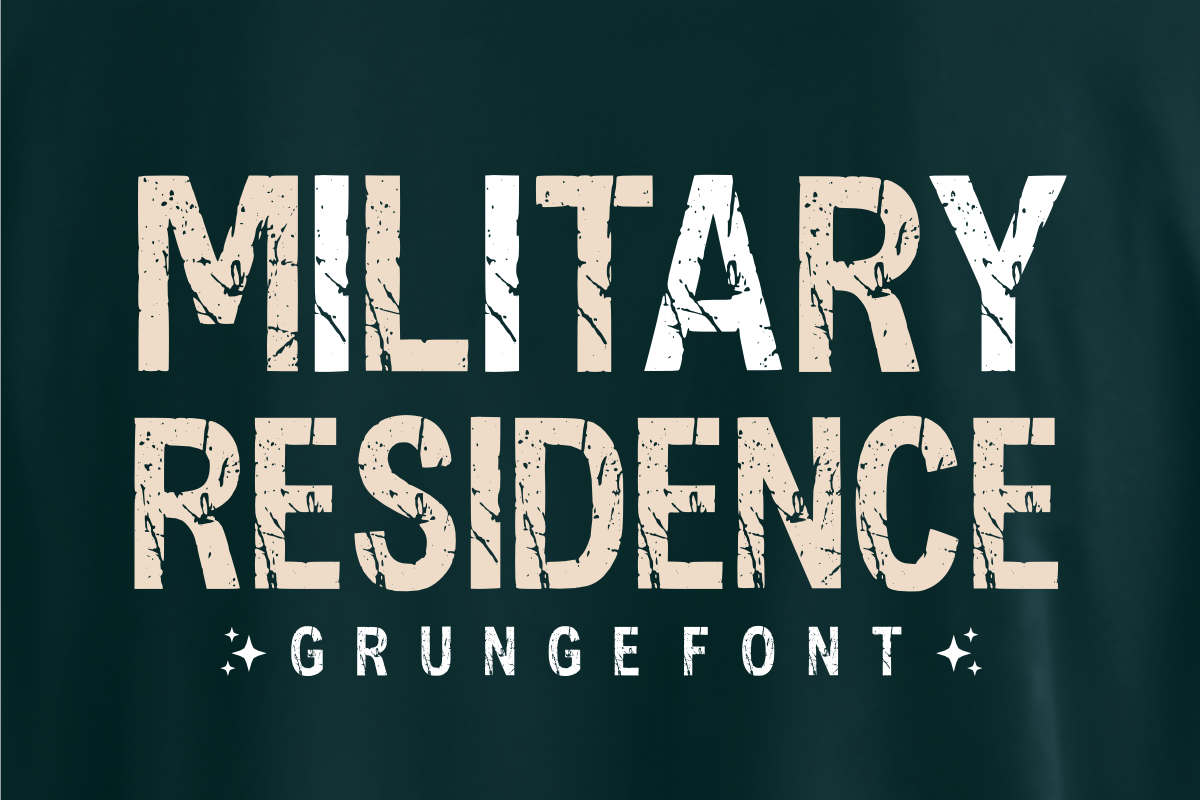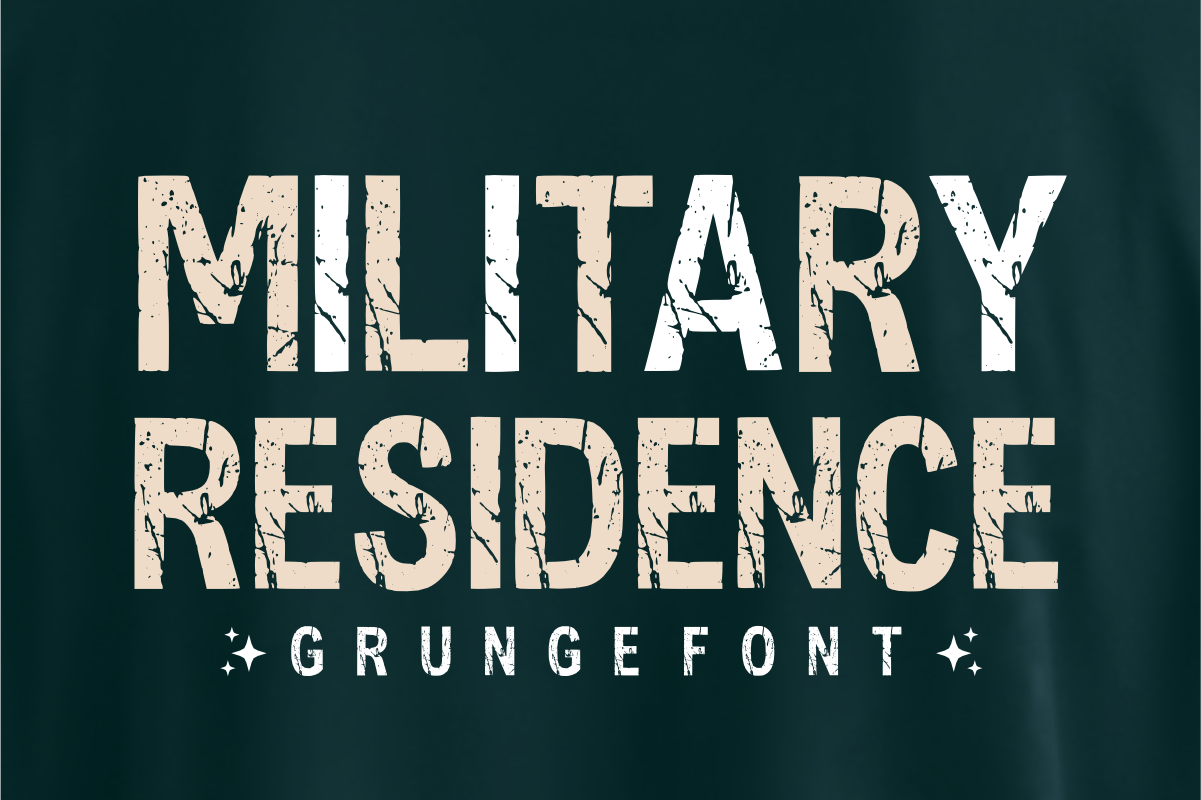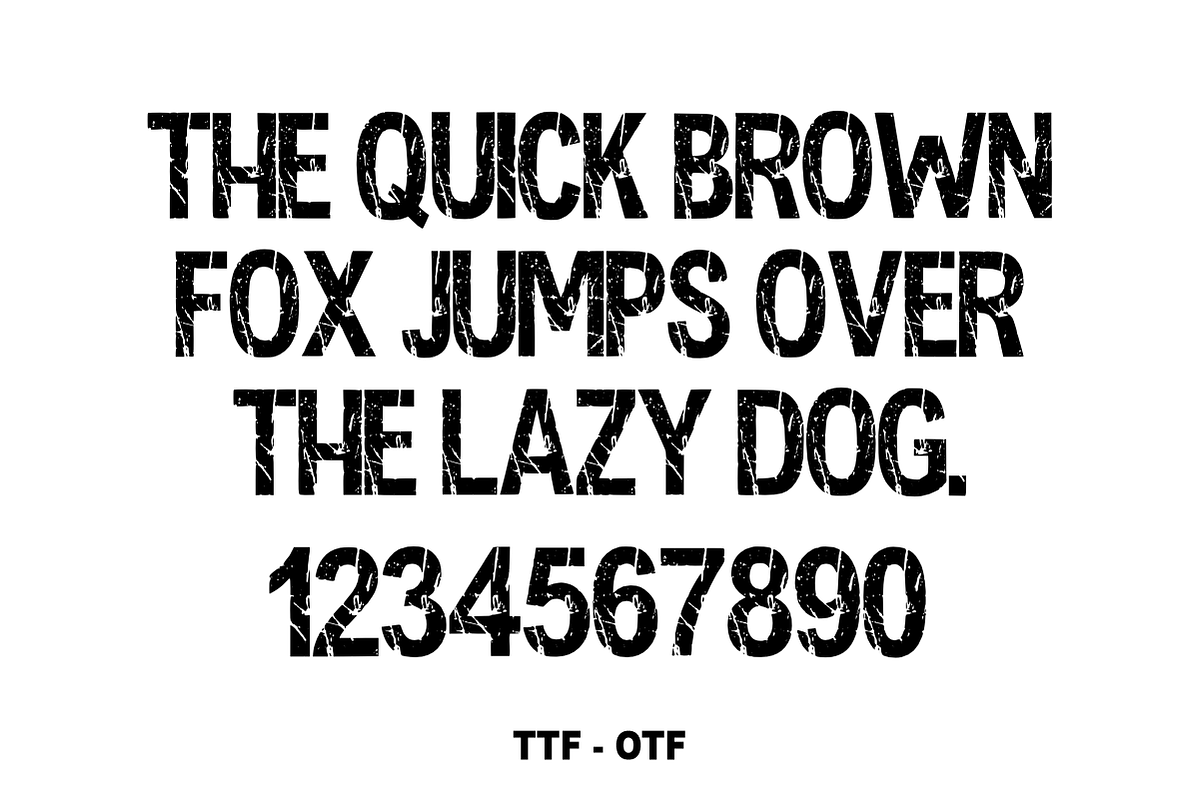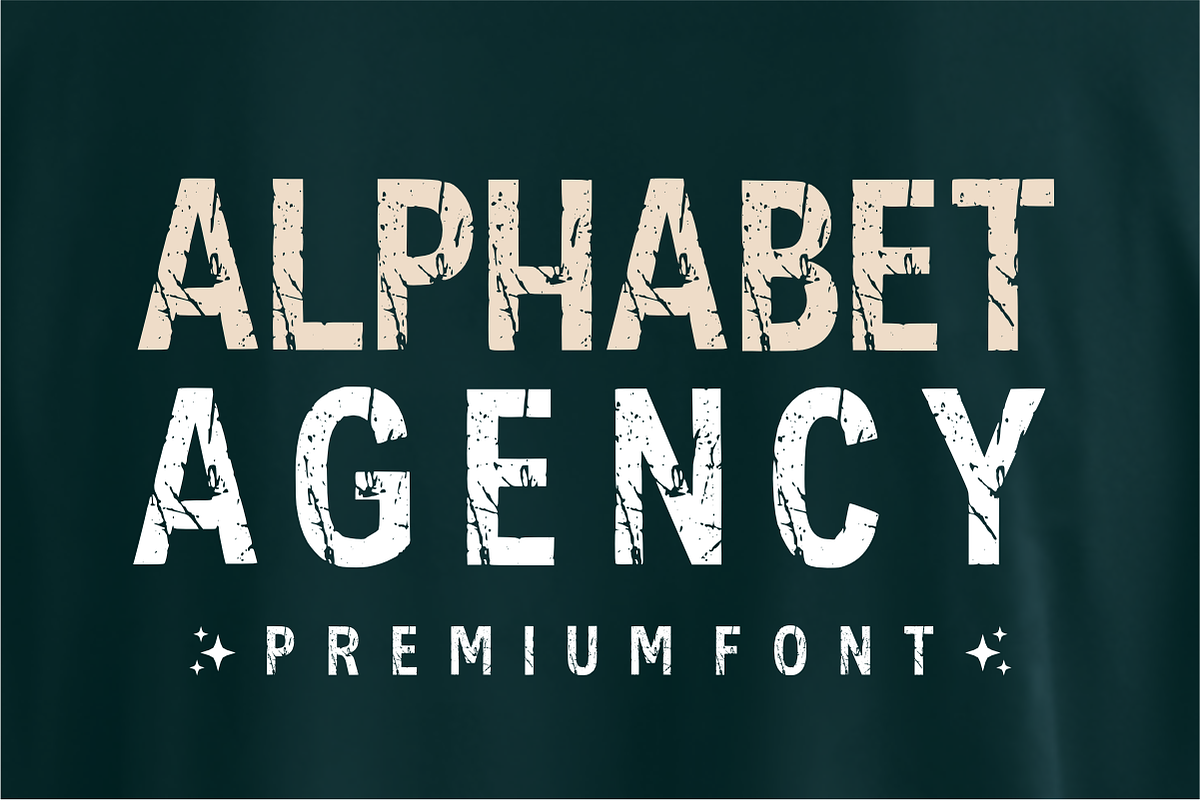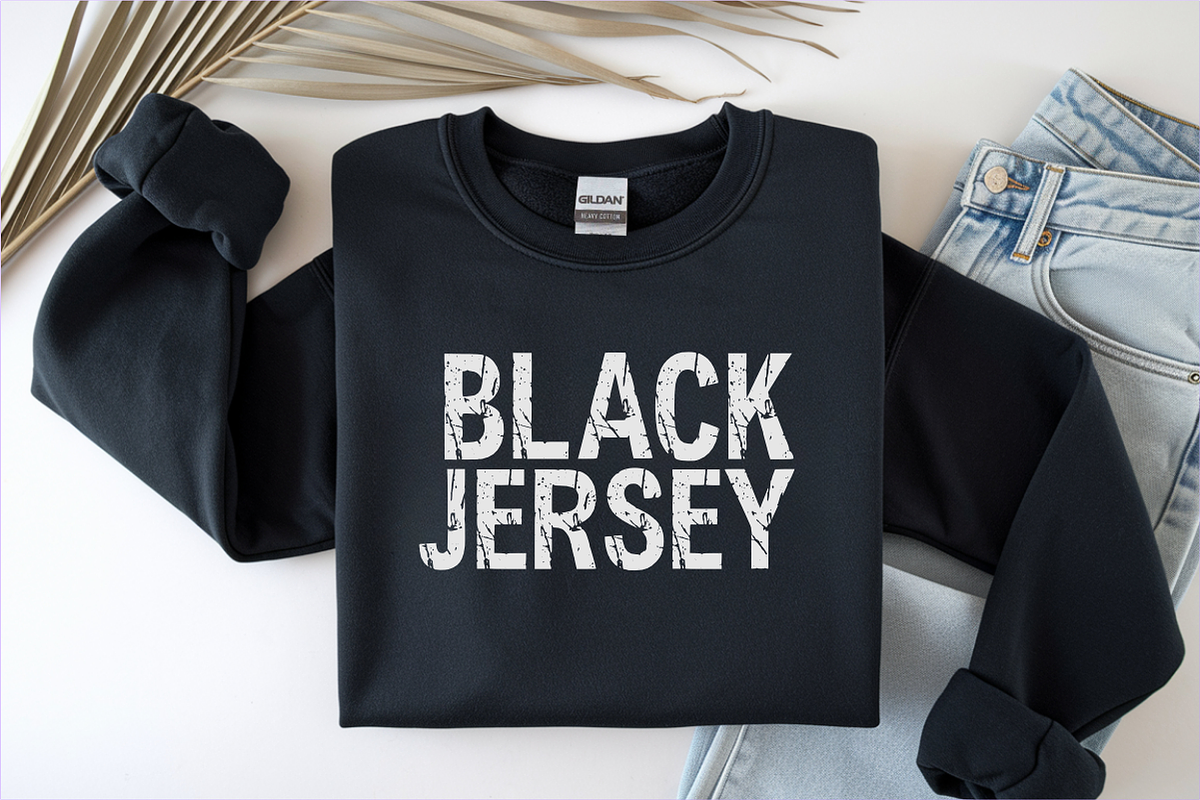
Military Residence – Rugged Font
Military Residence – Rugged & Bold Stencil Font 🪖🎖️
Command attention with a typeface built for strength and authority!
Military Residence is a powerful all-caps display font inspired by classic military stencils and industrial utility markings. With its thick, blocky structure and precise stencil cuts, this font delivers a rugged, "combat-ready" aesthetic that is perfect for high-impact designs. Whether you are creating tactical gear branding, industrial signage, or modern streetwear, Military Residence provides the bold, authoritative presence your project demands.
🌟 Why Military Residence is a Must-Have:
Authentic Stencil Aesthetic: Meticulously designed with clean stencil gaps that maintain excellent readability even at a distance.
Bold & Commanding: Its heavy weight and sharp angles make it the ideal choice for headlines, titles, and logos that need to look tough.
Industrial Precision: Perfectly balances a vintage army feel with a modern, clean industrial look.
🎨 Perfect For:
🪖 Military & Tactical Branding: Logos for tactical gear, outdoor equipment, and security firms.
👕 Streetwear & Apparel: High-impact graphics for t-shirts, hoodies, and cargo-style brand labels.
🚧 Industrial & Urban Design: Signage, warning labels, and construction-themed marketing materials.
🎸 Music & Event Posters: Perfect for rock festivals, action movie titles, and high-energy event banners.
🎮 Gaming & Esports: Create powerful team identities and in-game UI elements for combat or strategy games.
Character Set: Bold & Authoritative Uppercase Letters (A-Z).
Numbers & Symbols: Complete numerals (0-9) and essential simple punctuation.